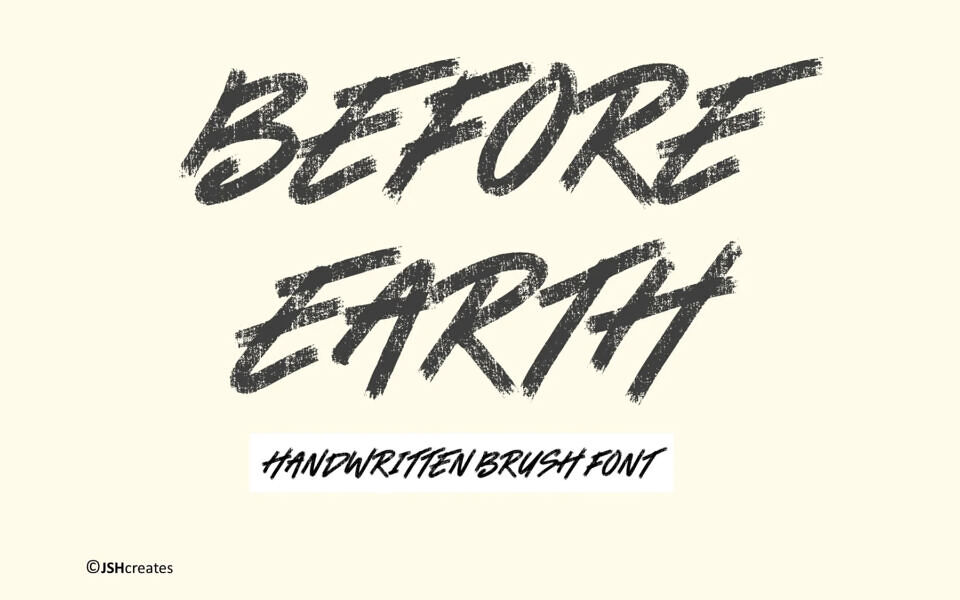
Before Earth is a bold handwritten brush font with a raw, textured style perfect for posters, logos, album covers, apparel, and eye-catching headlines. Its rough strokes and urban-inspired design give projects a gritty, energetic feel while maintaining strong readability. Designed by Jonathan S. Harris, this typeface works especially well for creative branding, street-style graphics, and modern display designs.